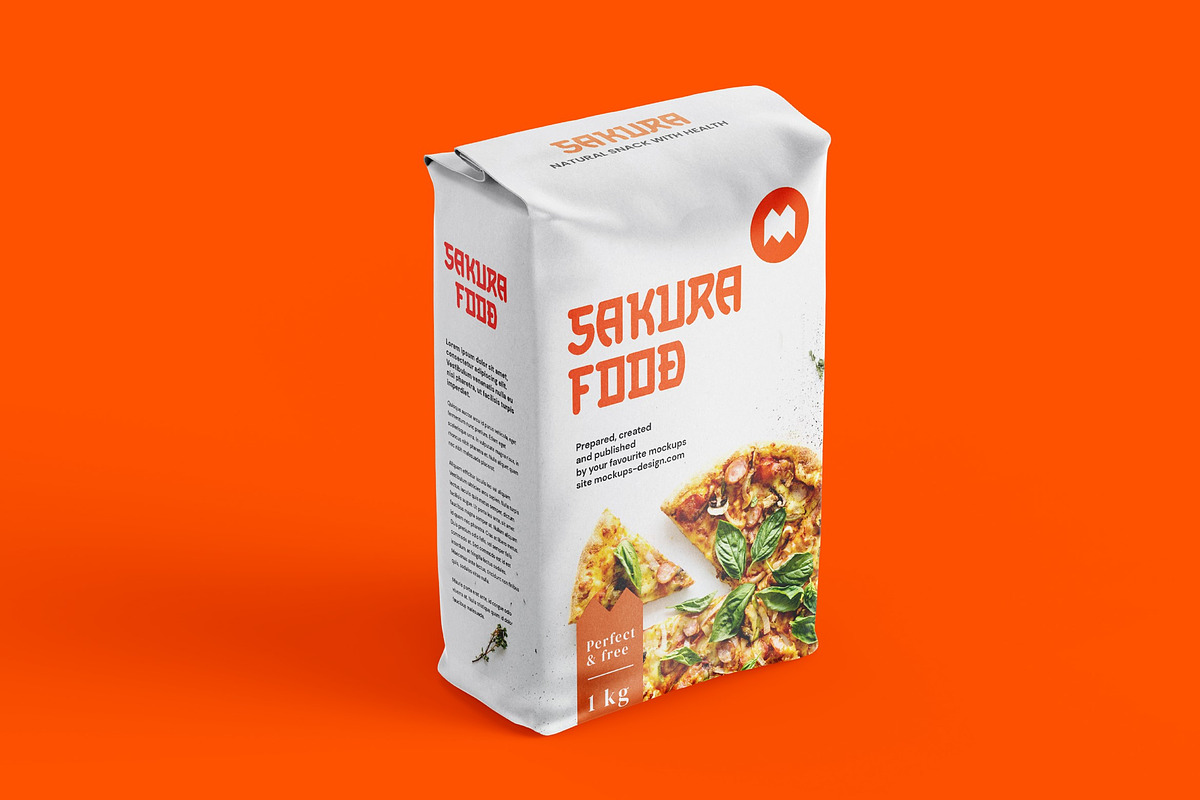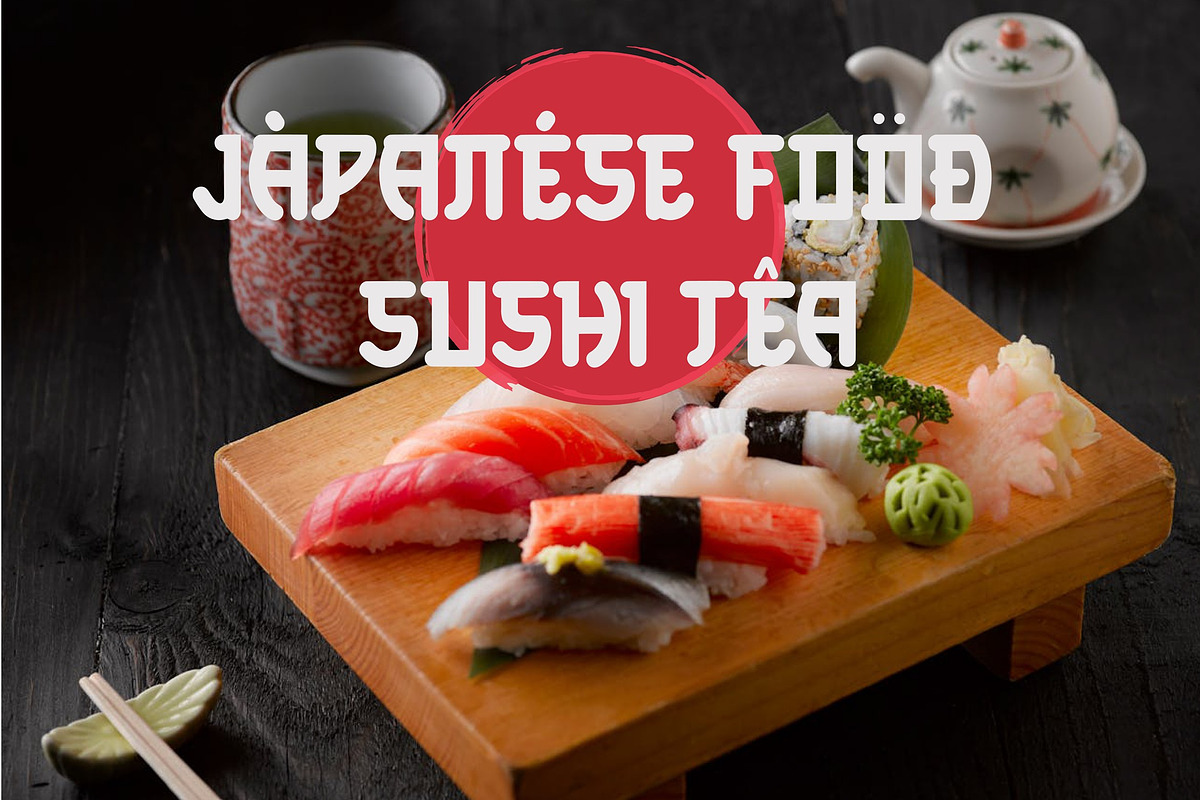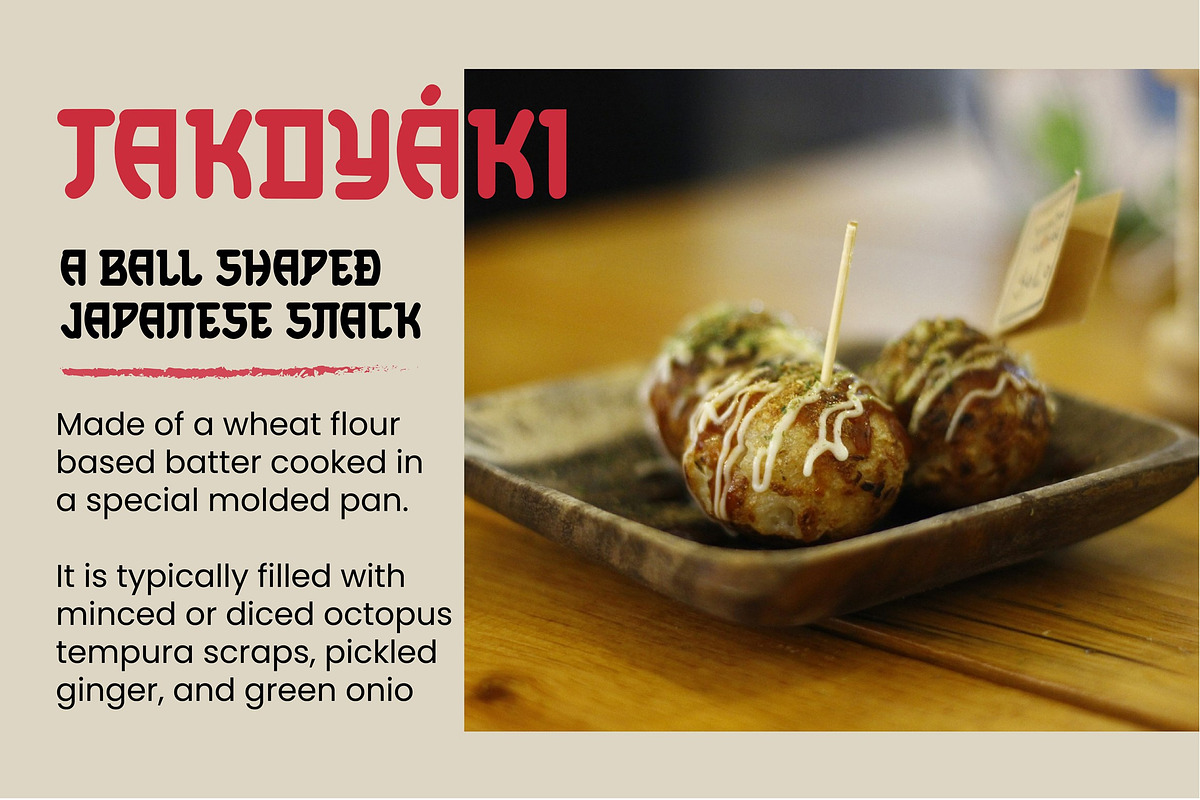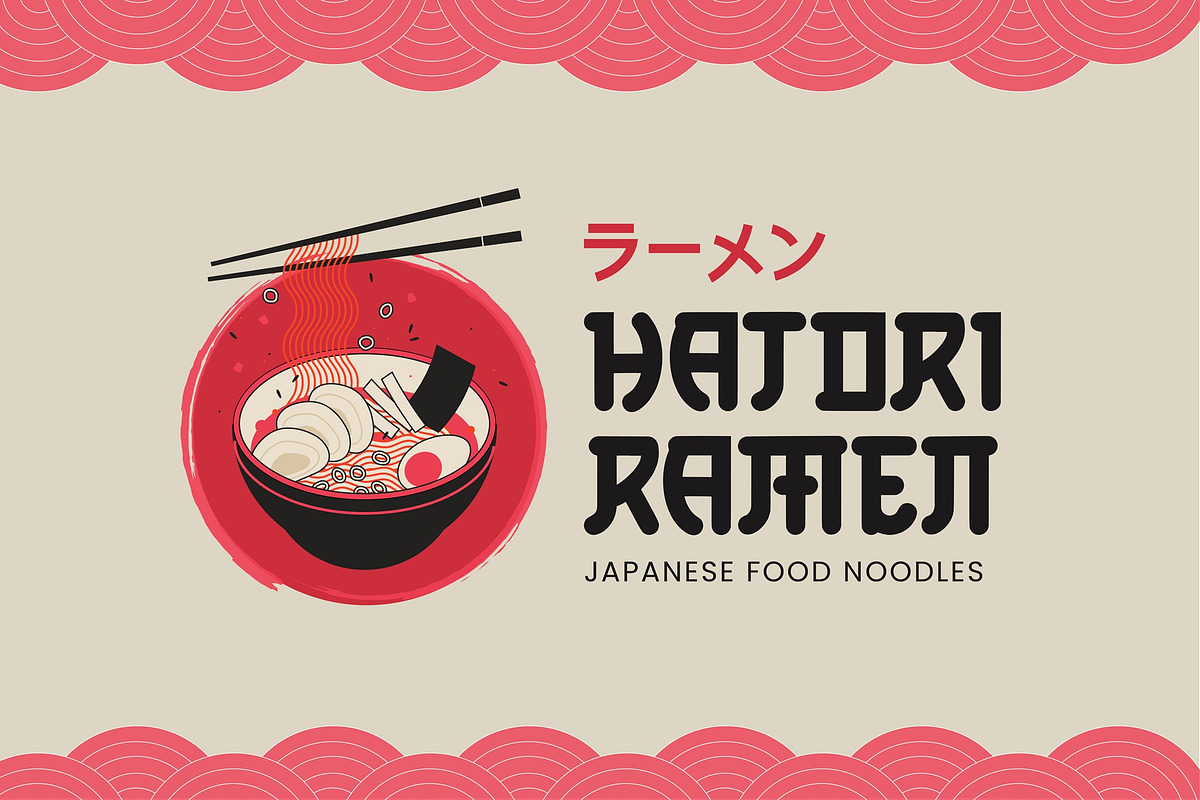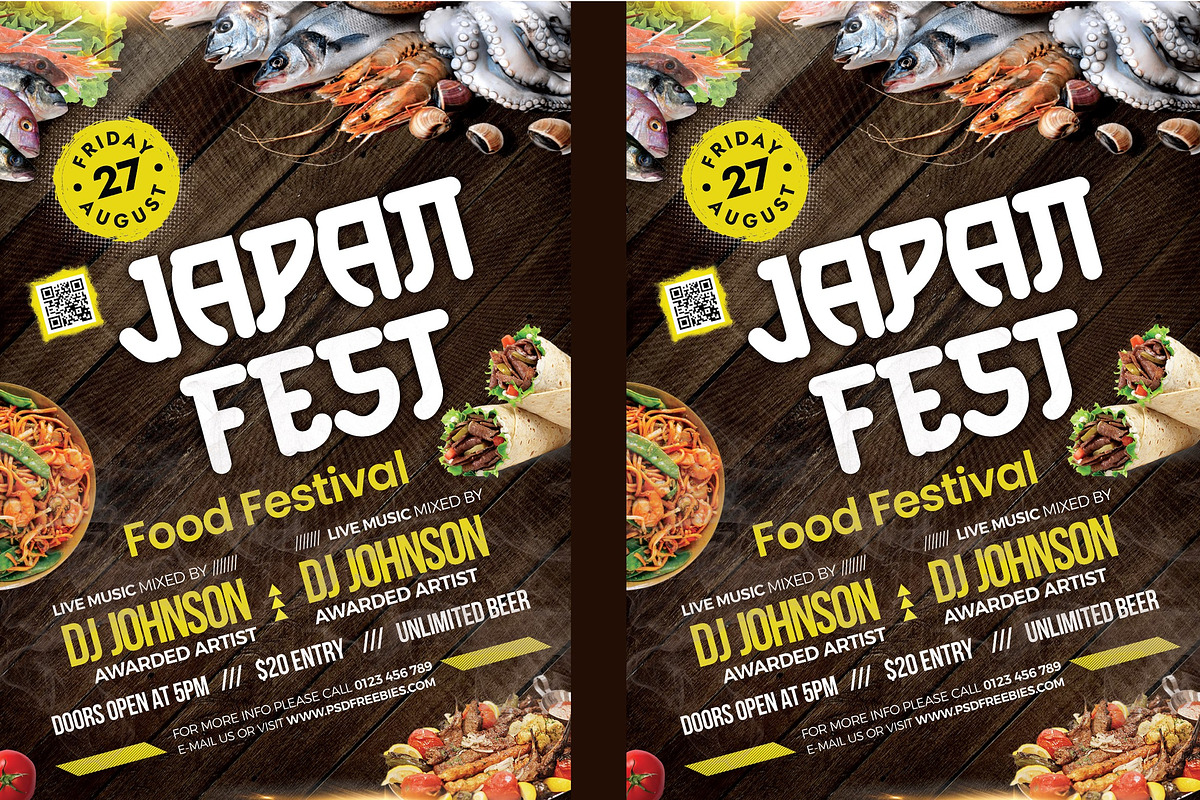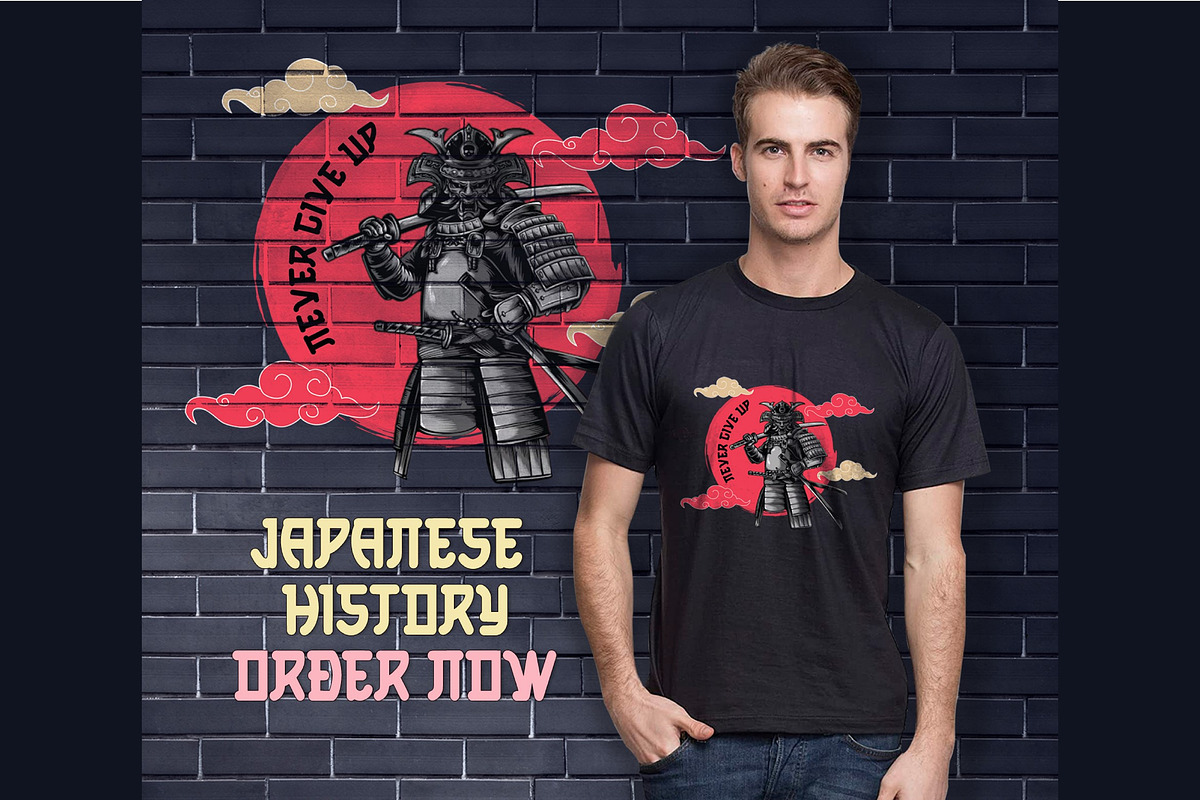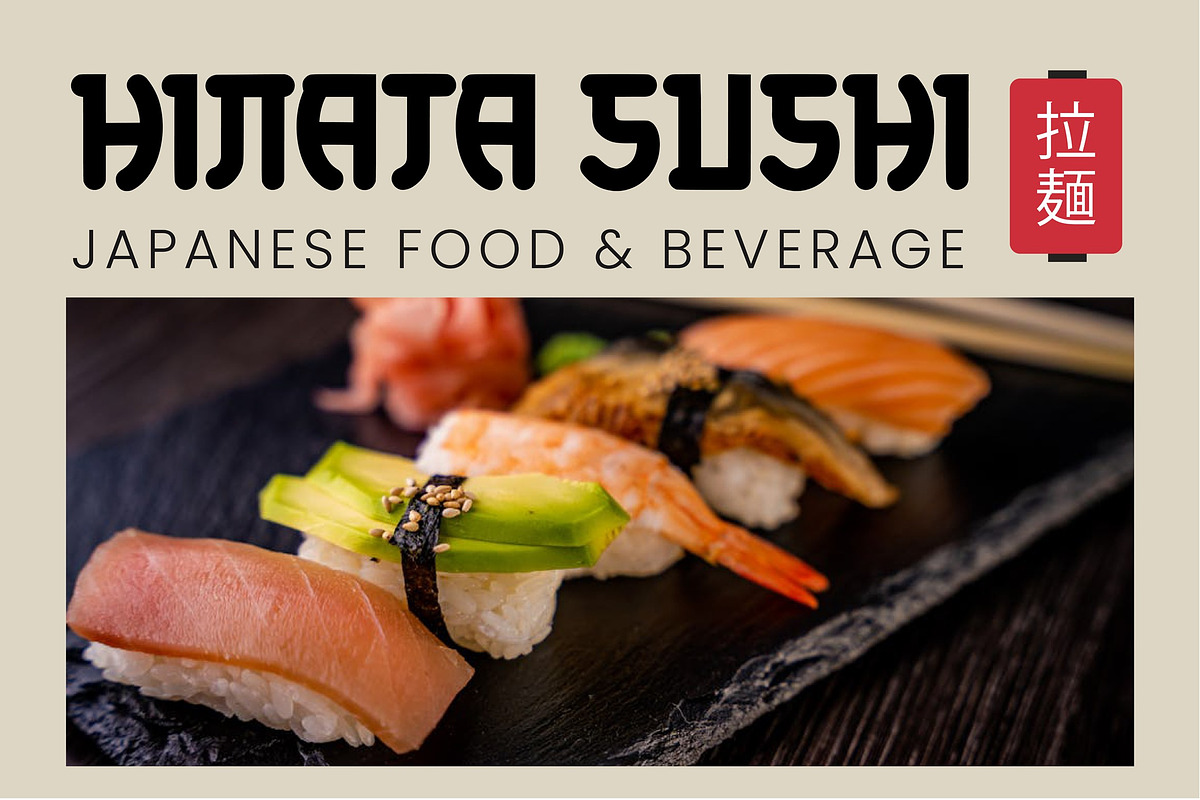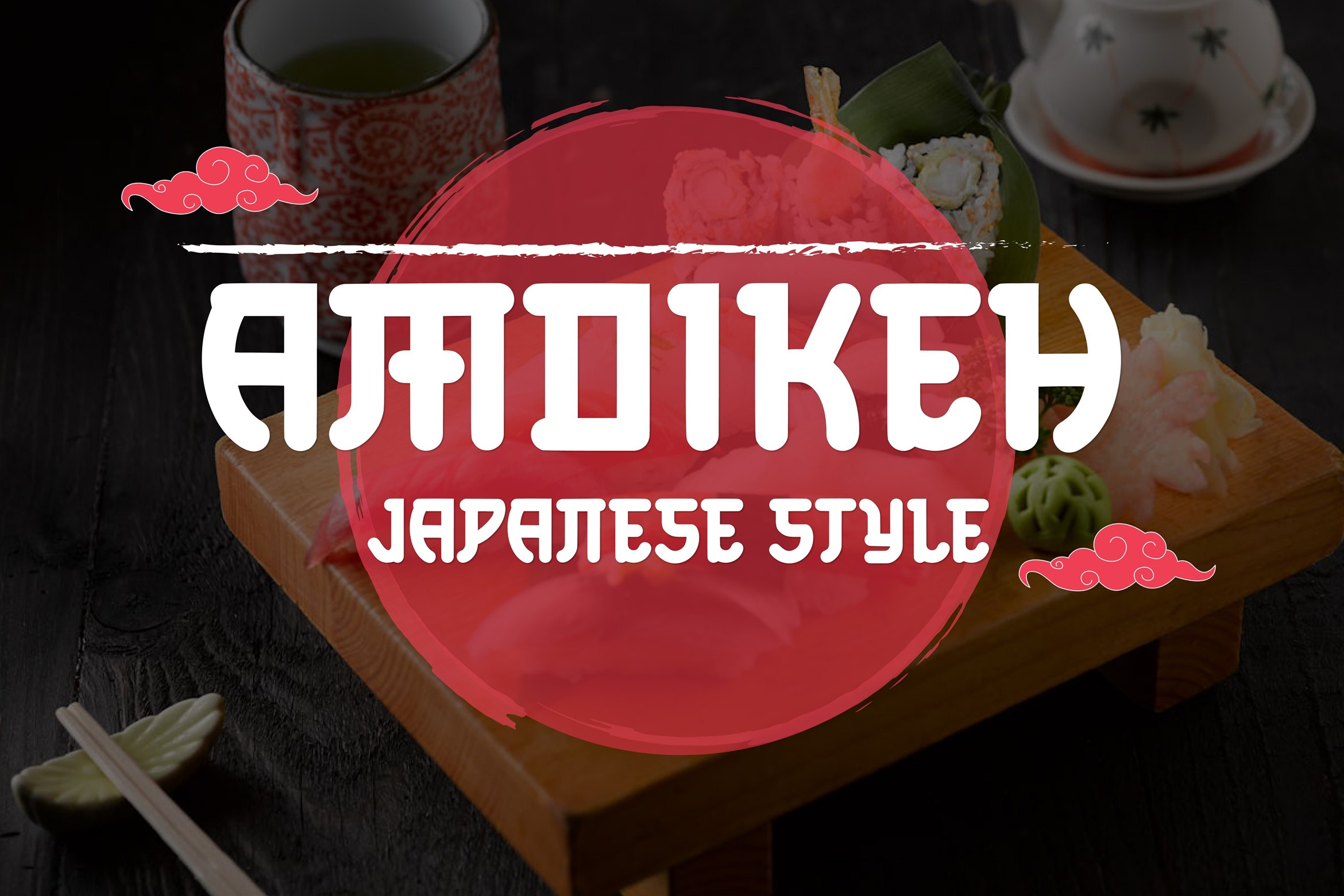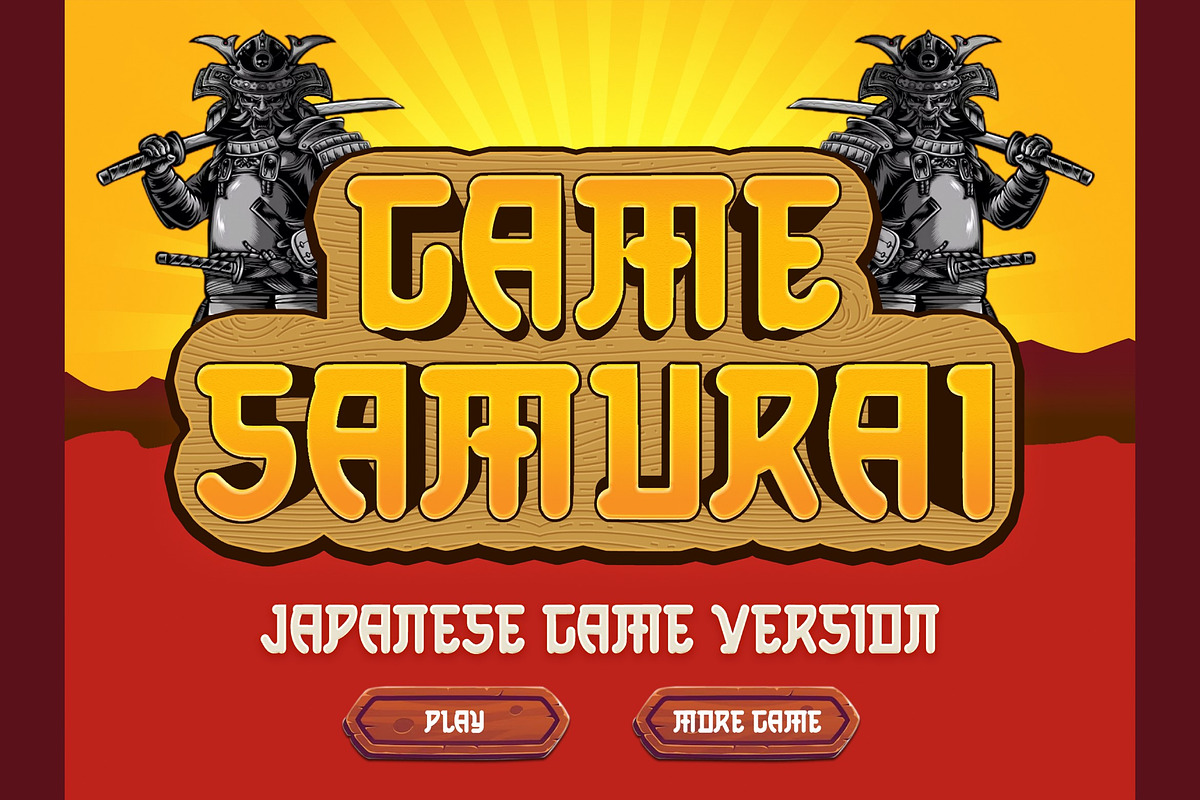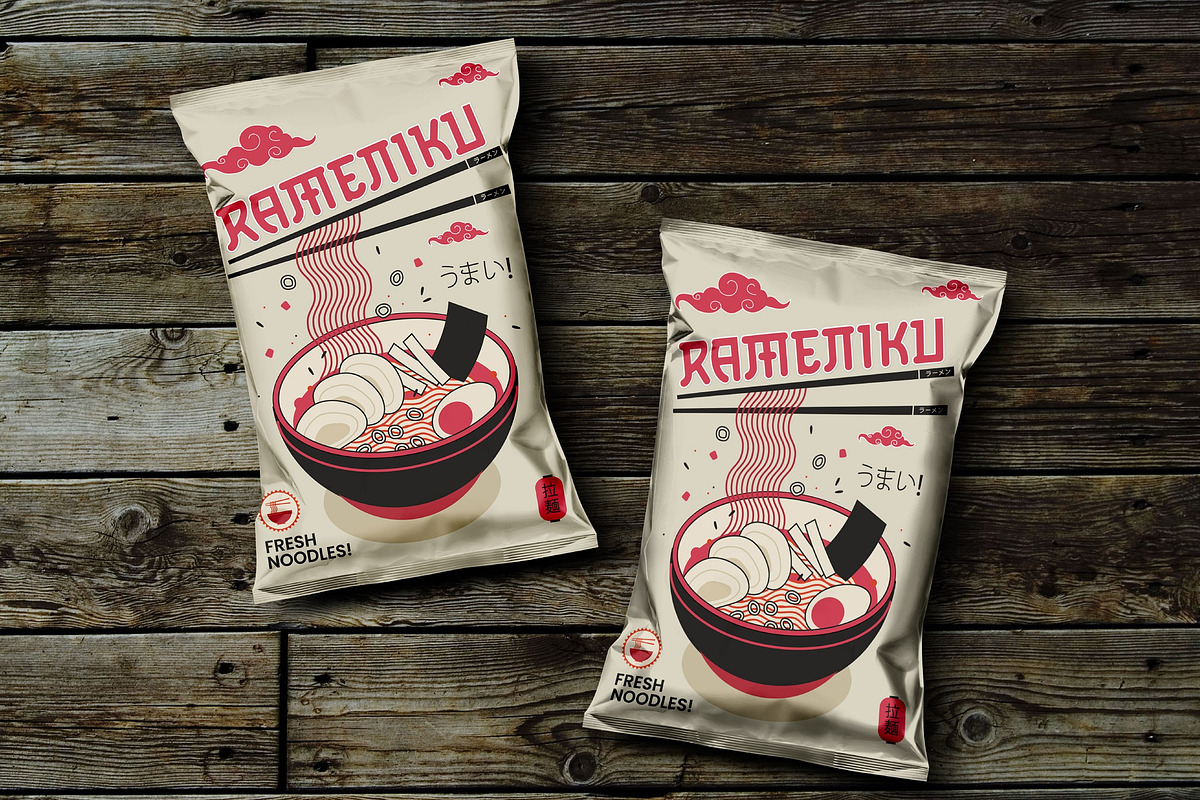
Amoikeh Japanese Font
Amoikeh Japanese Font is an elegant display Japanese style typeface, it’s perfect for many different projects such as logos and branding, invitations, anime title, labels, photography, game, movie and also can be used for Creative Projects. Is perfect for your brand!